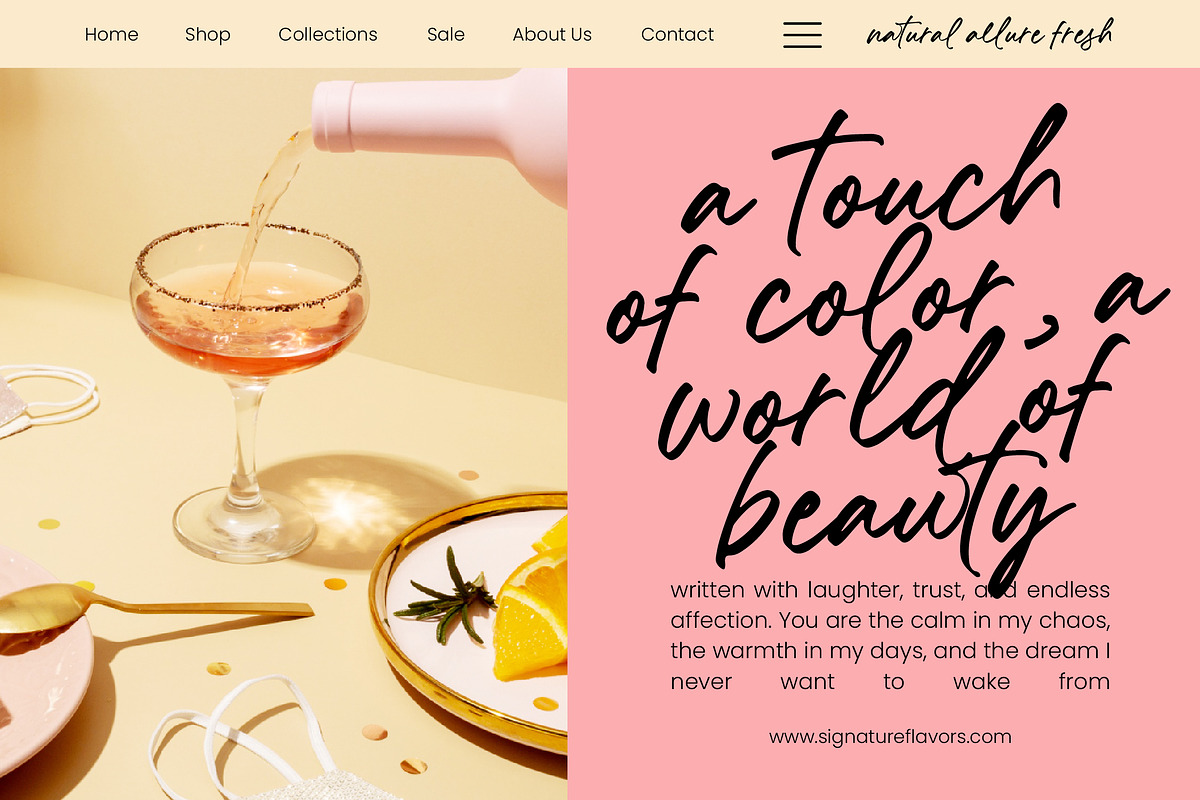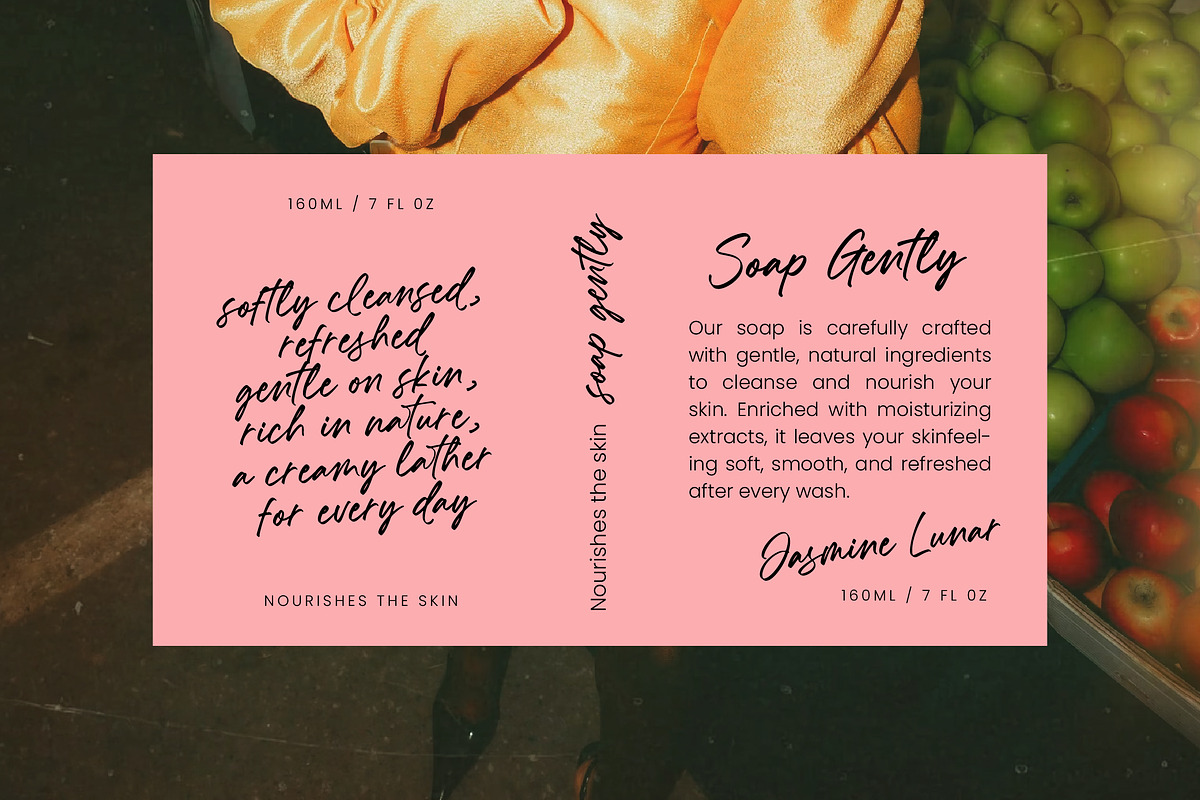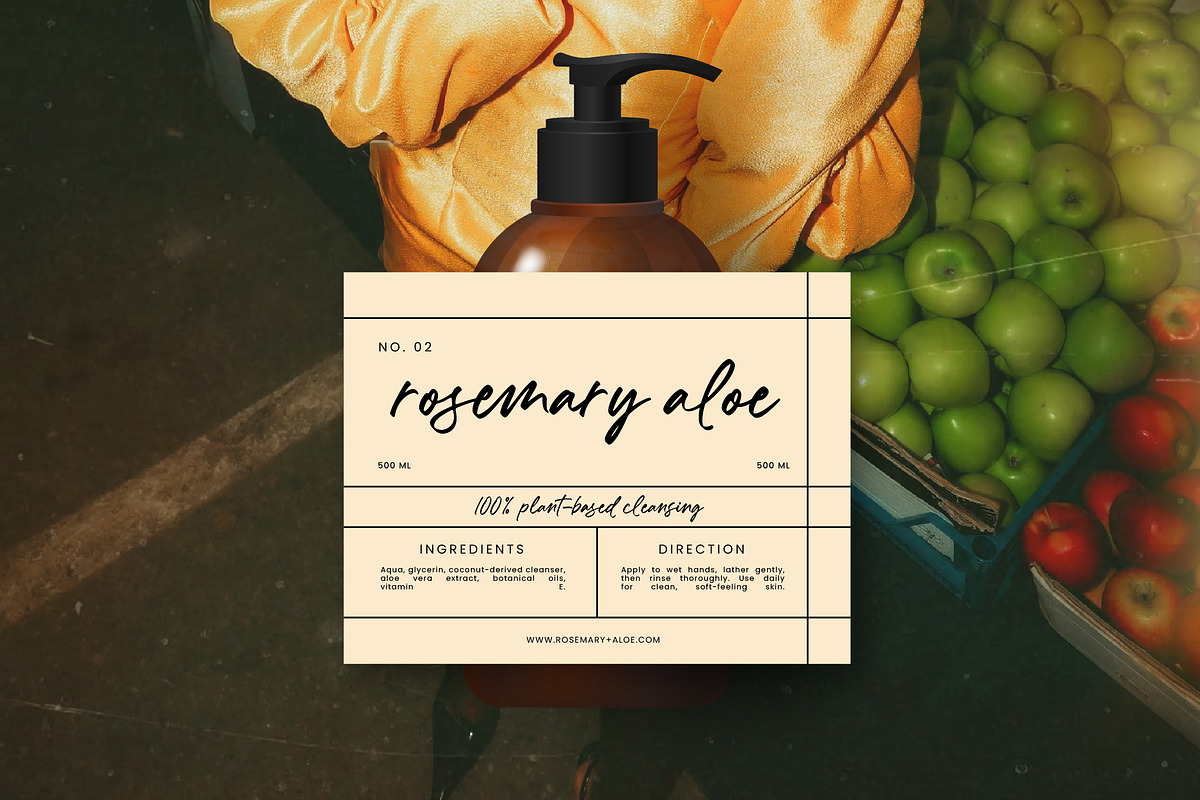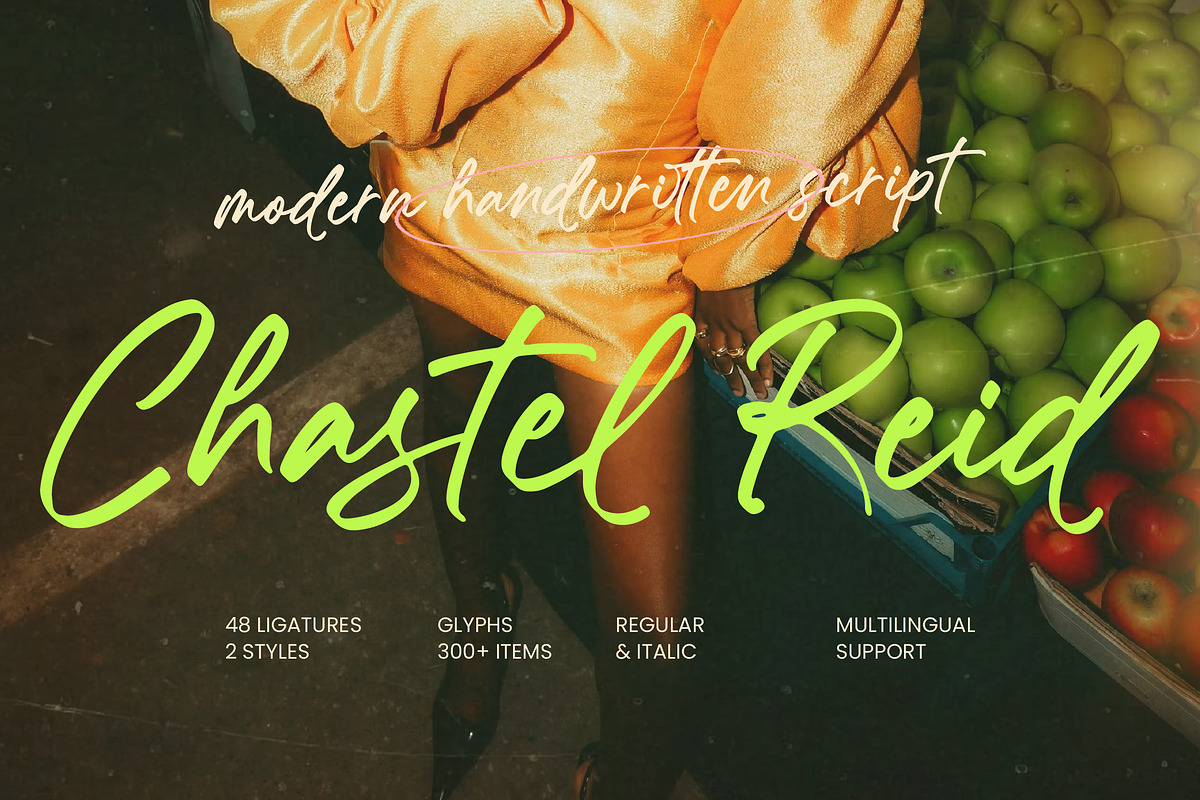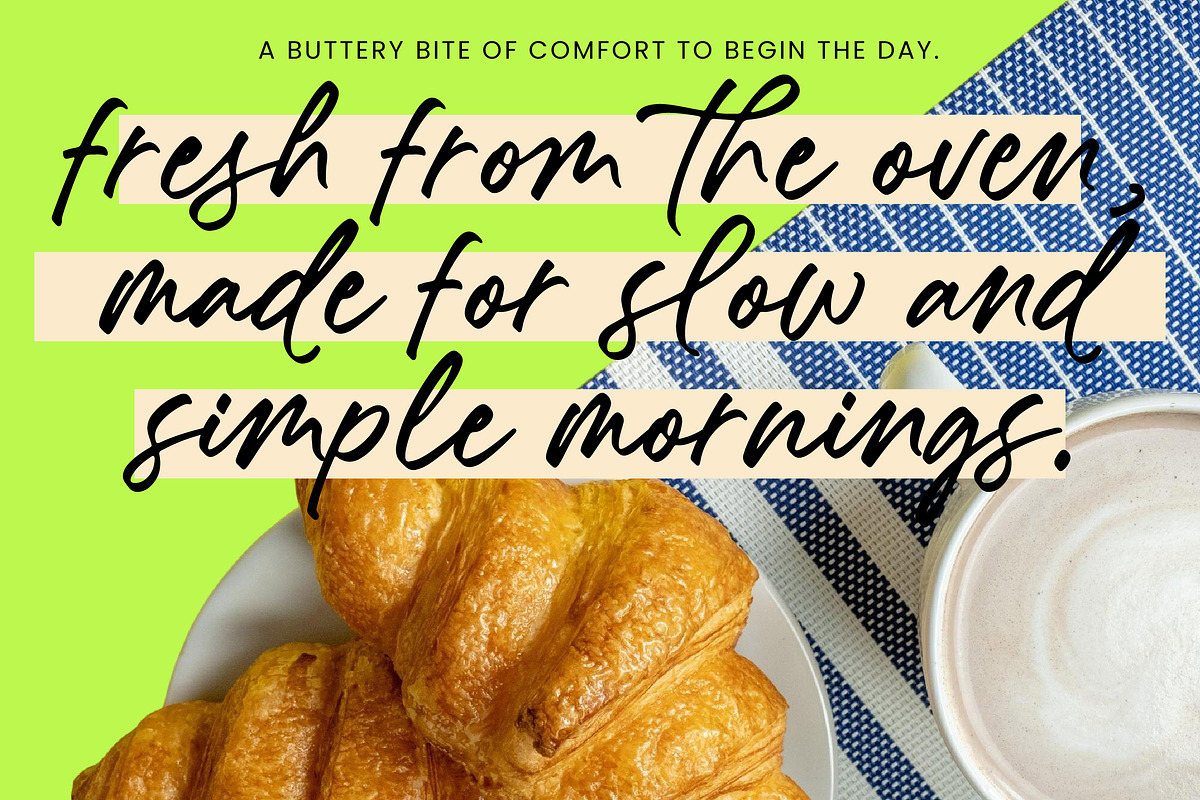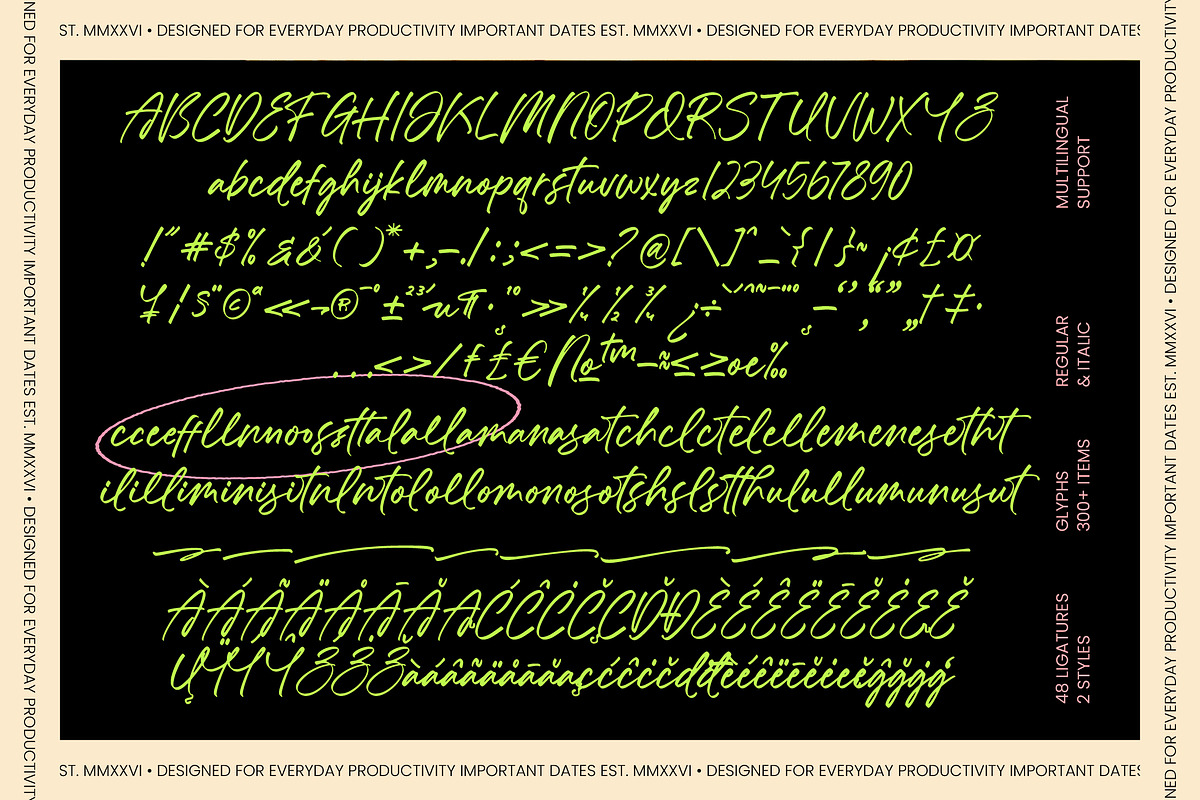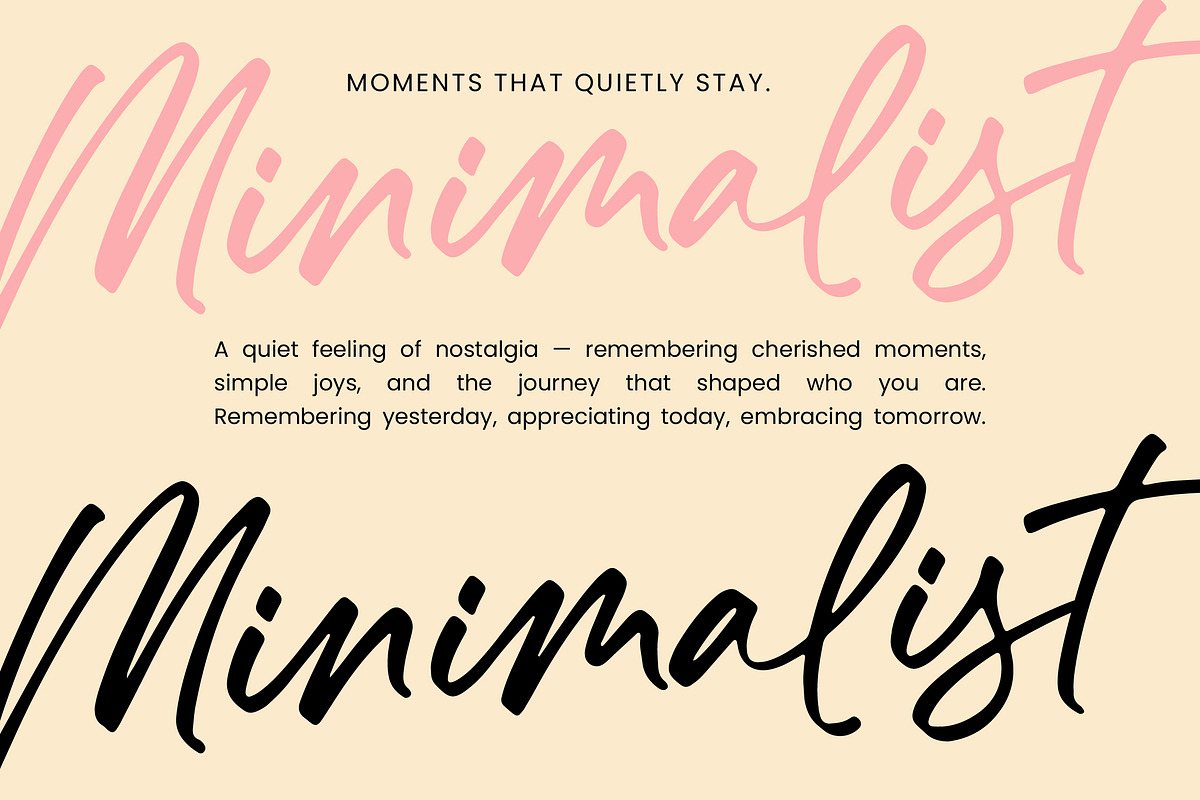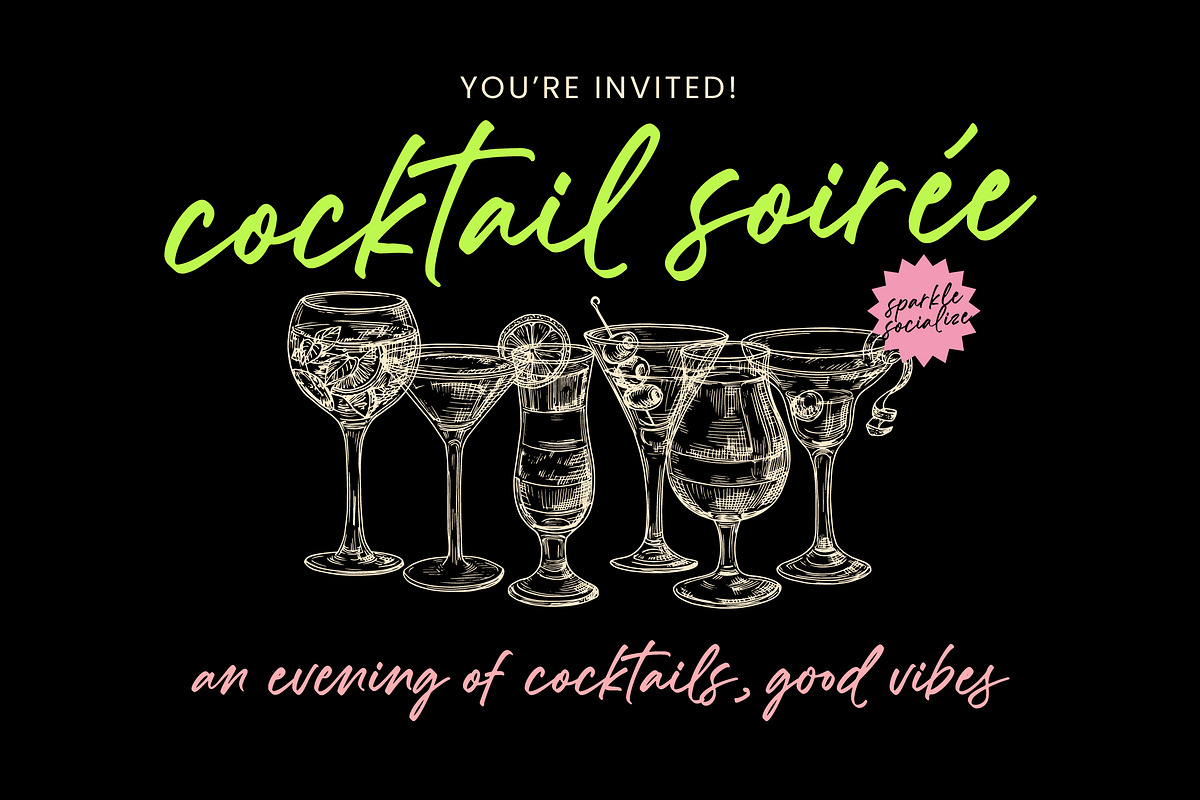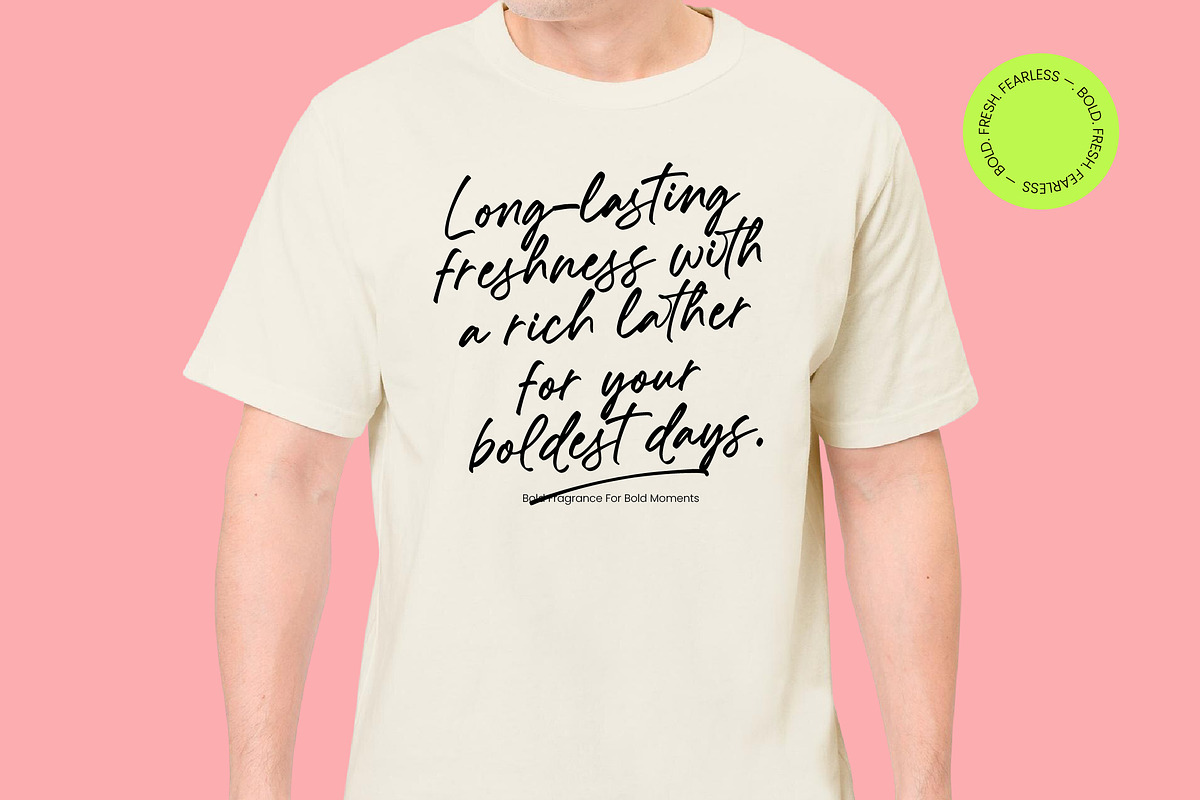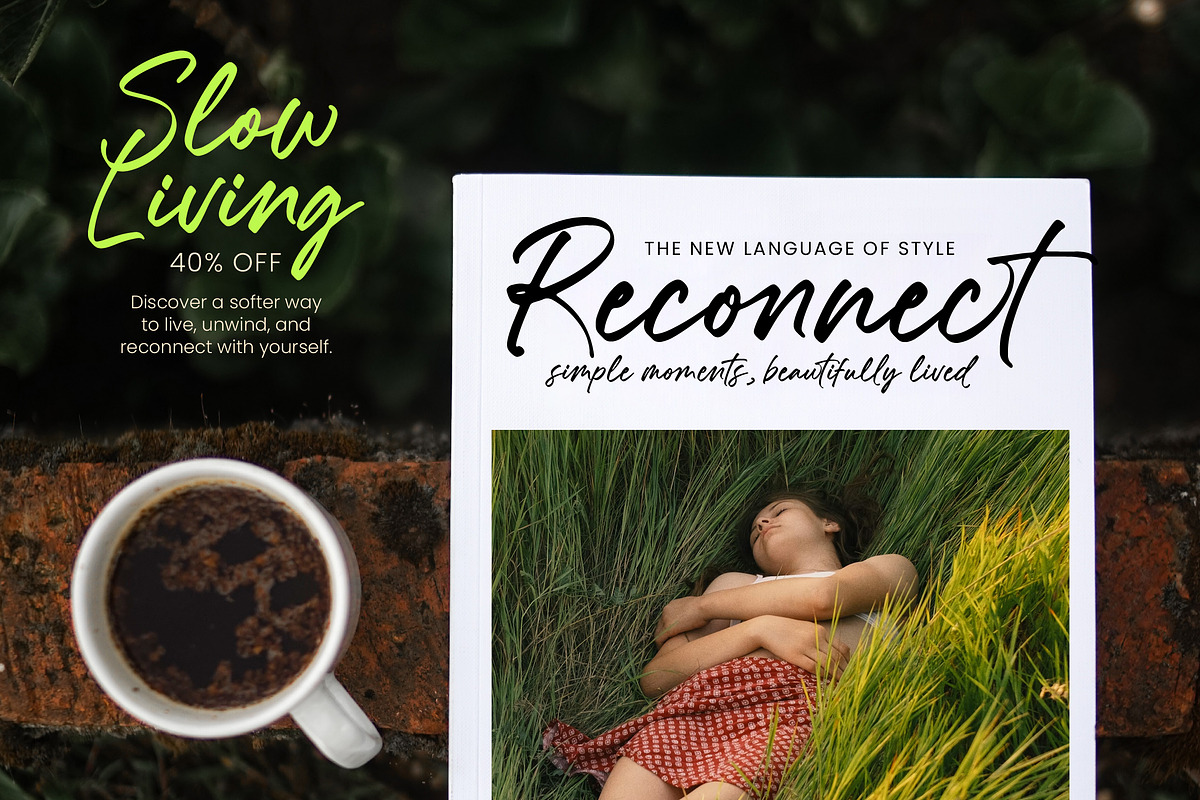
Chastel Reid Modern Handwritten
Chastel Reid - Modern Handwritten Script
Elevate your creative vision with a typeface that embodies effortless sophistication and contemporary flair. Chastel Reid - Modern Handwritten Script is a masterfully crafted handwritten typeface designed to bring a personal, organic touch to high-impact visuals. Its fluid strokes and rhythmic flow capture an authentic aesthetic, making it an essential tool for designers seeking to balance modern style with a handcrafted feel. This font doesn't just display text; it conveys a lifestyle of chic elegance and artistic confidence.
Unlock unparalleled design potential across a wide spectrum of premium applications. Chastel Reid - Modern Handwritten Script is the perfect choice for luxury branding, fashion editorials, and high-end packaging where a unique personality is paramount. Whether you are developing lifestyle logos, stylized social media content, or exclusive event invitations, this font provides the visual hierarchy and character needed to stand out in a crowded marketplace.
Engineered for versatility, this typeface offers a comprehensive suite of features to ensure professional results every time. With its extensive multilingual support, Chastel Reid - Modern Handwritten Script adapts seamlessly across global markets, making it incredibly versatile for international projects. Boasting over 300 glyphs and 48 custom ligatures, it provides a natural handwriting flow that remains legible while maintaining its artistic edge across various digital and print media.
Transform your portfolio with a versatile asset that offers both Regular and Italic styles for maximum creative flexibility. Chastel Reid - Modern Handwritten Script is more than just a font; it is a sophisticated design solution that bridges the gap between traditional calligraphy and modern minimalism. By choosing this professional script font, you ensure your brand identity resonates with a sense of refined luxury and timeless charm that captures the attention of high-value clients worldwide.